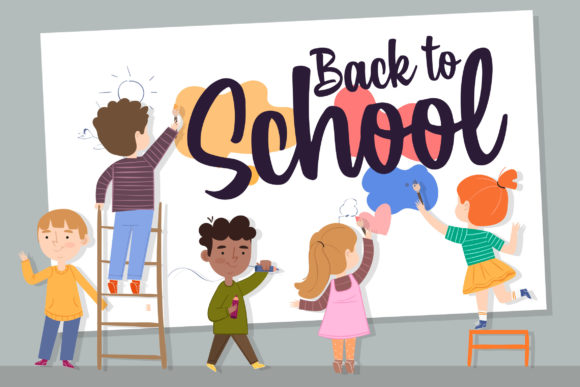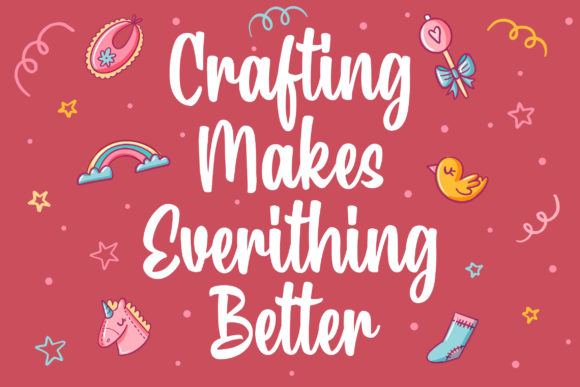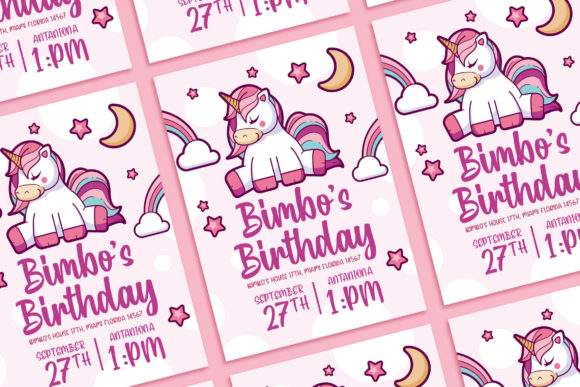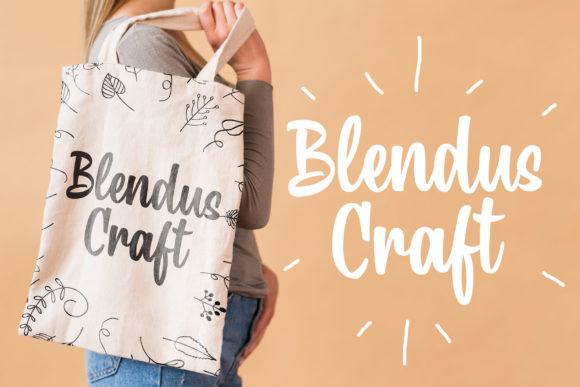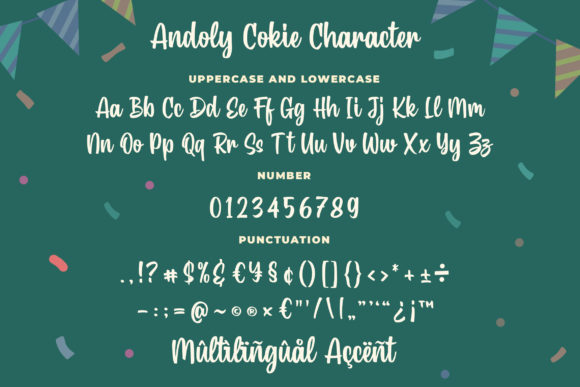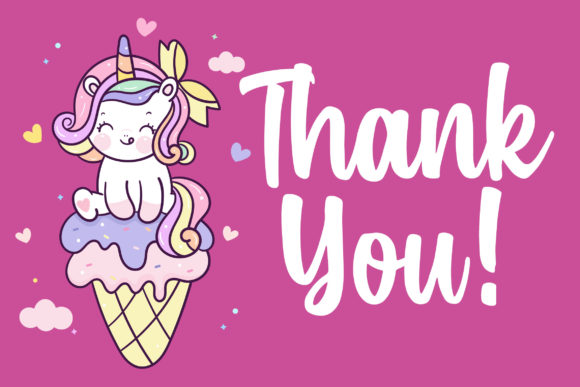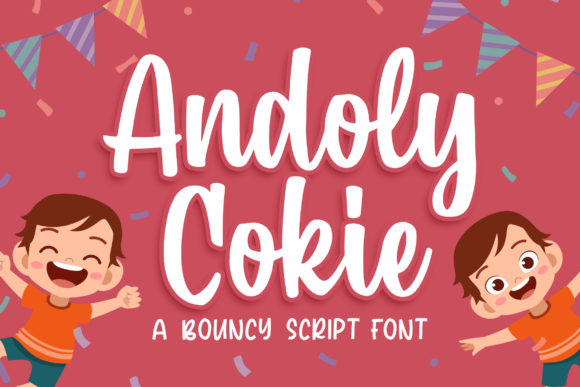
Introducing Andoly Cokie Font: The Magical Handwritten Font for Elegant Designs
Are you a designer or crafter looking for a unique and elegant font to elevate your creative projects? Look no further than Andoly Cokie Font, a beautifully crafted handwritten font that exudes sophistication and charm. In this article, we’ll dive into the world of Andoly Cokie Font, exploring its features, uses, and benefits, and why it’s the perfect addition to your design toolkit.
The Story Behind Andoly Cokie Font
Andoly Cokie Font is a carefully crafted handwritten font, designed with a touch of elegance and a dash of magic. Its creator aimed to bring a sense of authenticity and uniqueness to the world of typography, and the result is a font that feels both modern and timeless. With Andoly Cokie Font, you can add a personal touch to your designs, making them stand out from the crowd and leaving a lasting impression on your audience.
What Makes Andoly Cokie Font So Special?
So, what sets Andoly Cokie Font apart from other fonts? Here are just a few of its standout features:
- Authentic feel: Andoly Cokie Font has a genuine, handwritten feel that makes it perfect for designs that require a personal touch.
- Elegant and sophisticated: With its flowing curves and refined lines, Andoly Cokie Font adds a touch of elegance to any design.
- Versatile: This font is suitable for a wide range of projects, from wedding invitations and stationery to social media posts and greeting cards.
- Easy to read: Despite its elegant feel, Andoly Cokie Font is remarkably legible, making it perfect for both digital and print designs.
Uses for Andoly Cokie Font
Andoly Cokie Font is an incredibly versatile font that can be used in a variety of creative projects. Here are some ideas to get you started:
- Wedding invitations: Add a touch of romance and sophistication to your wedding invitations with Andoly Cokie Font.
- Stationery art: Create beautiful stationery art, including notecards, journals, and planners, with this elegant font.
- Social media posts: Make your social media posts stand out with Andoly Cokie Font’s unique and eye-catching style.
- Greeting cards: Design cute and personalized greeting cards for special occasions, such as birthdays, holidays, and anniversaries.
Andoly Cokie Font offers a range of benefits for designers and crafters, including:
- Time-saving: With Andoly Cokie Font, you can create stunning designs in no time, thanks to its ease of use and versatility.
- Increased creativity: This font’s unique and elegant style will inspire you to try new things and push the boundaries of your creativity.
- Professional results: Andoly Cokie Font is perfect for designers and crafters who want to produce high-quality, professional-looking designs without spending hours on typography.
In conclusion, Andoly Cokie Font is a magical handwritten font that will capture your heart with its authentic feel and elegant style. Whether you’re a designer or crafter, this font is the perfect addition to your toolkit, offering a world of creative possibilities and professional results. So why wait? Fall in love with Andoly Cokie Font and start creating gorgeous designs today!